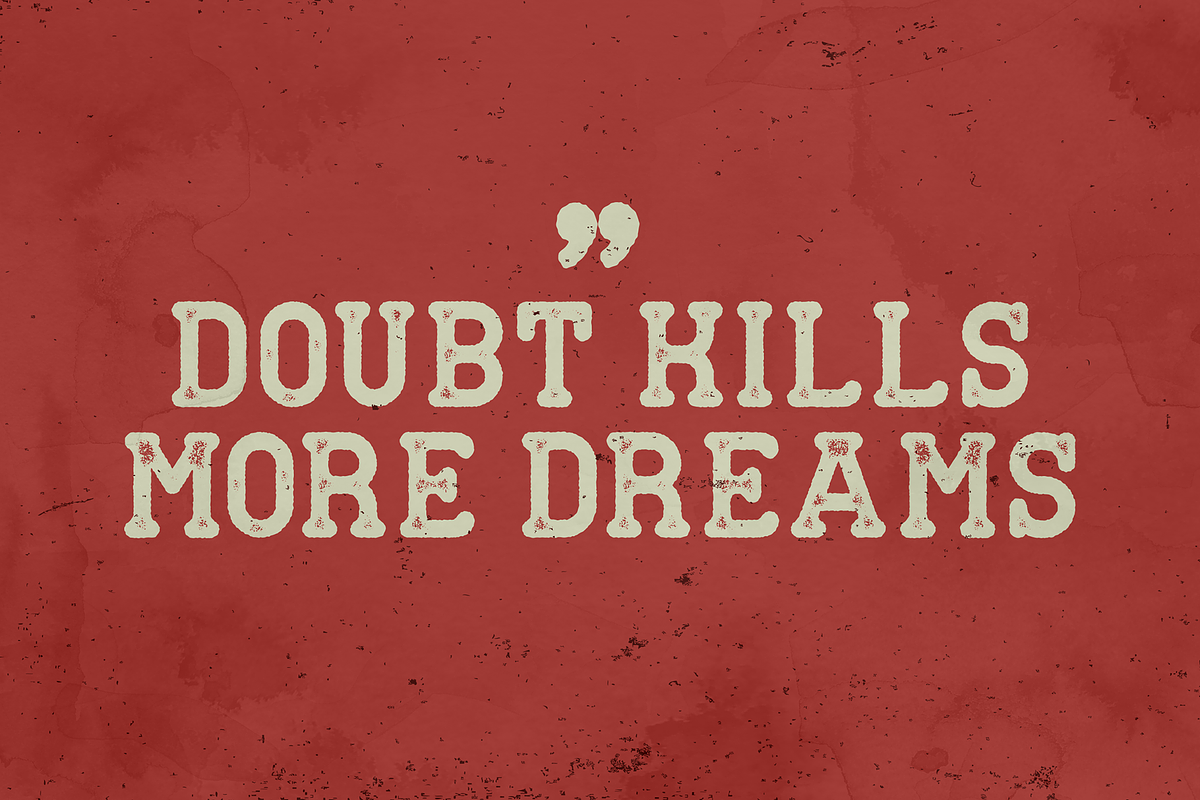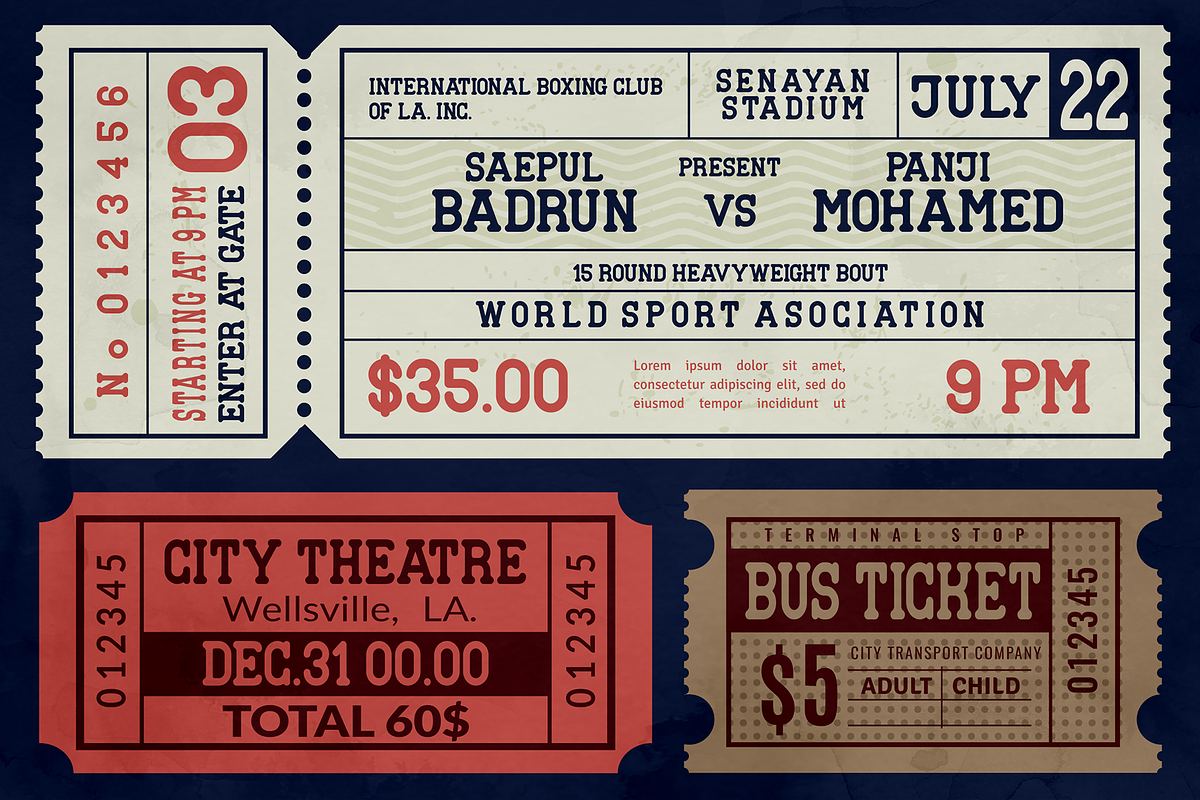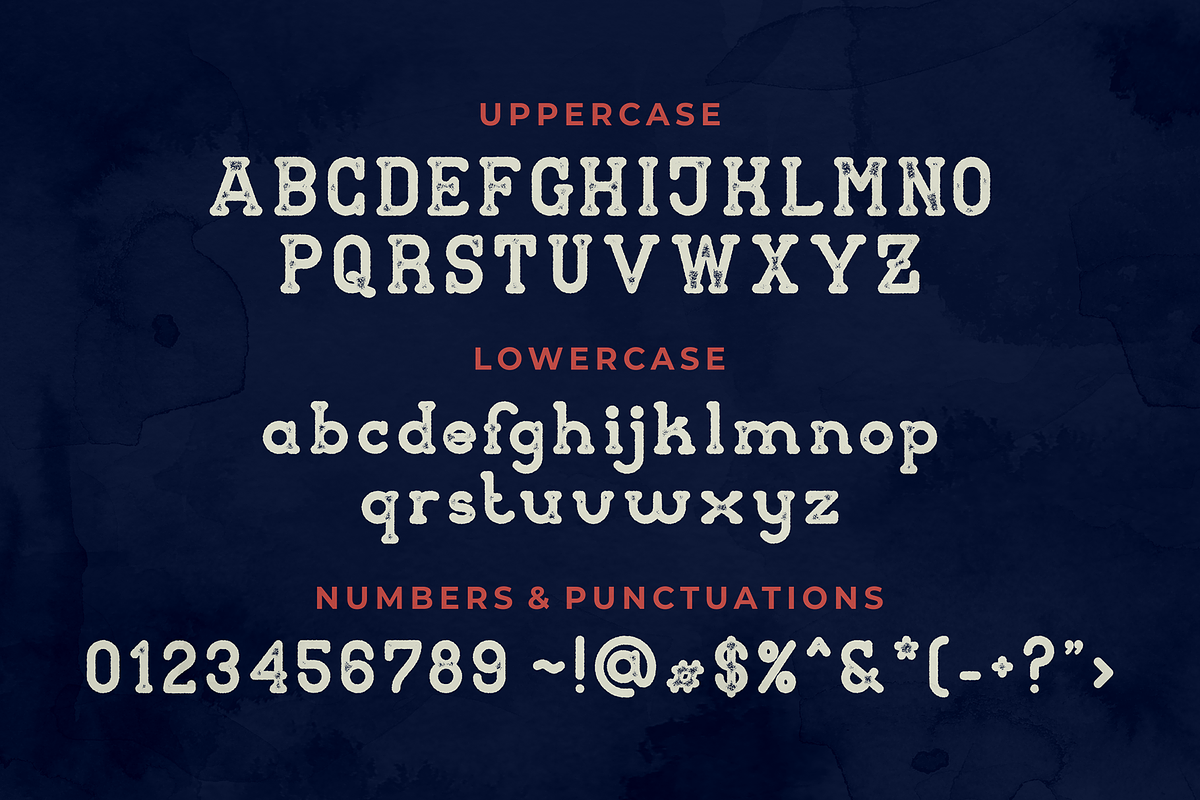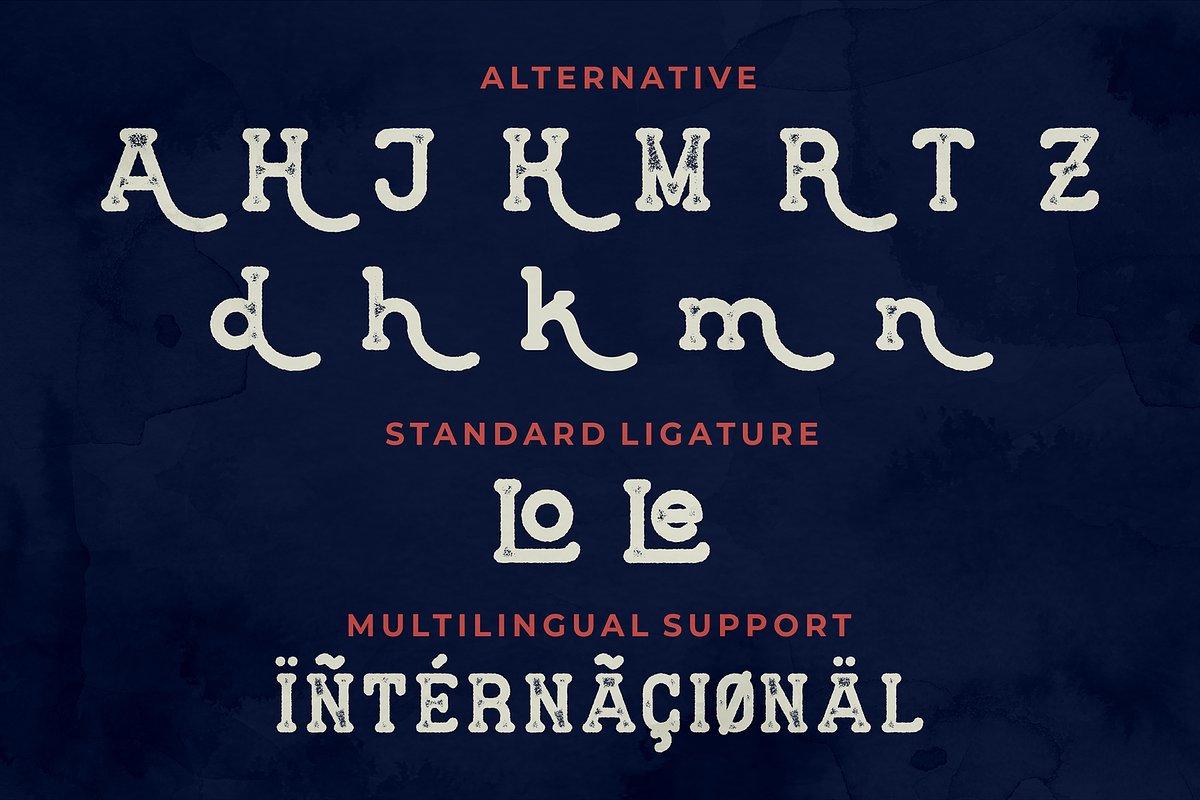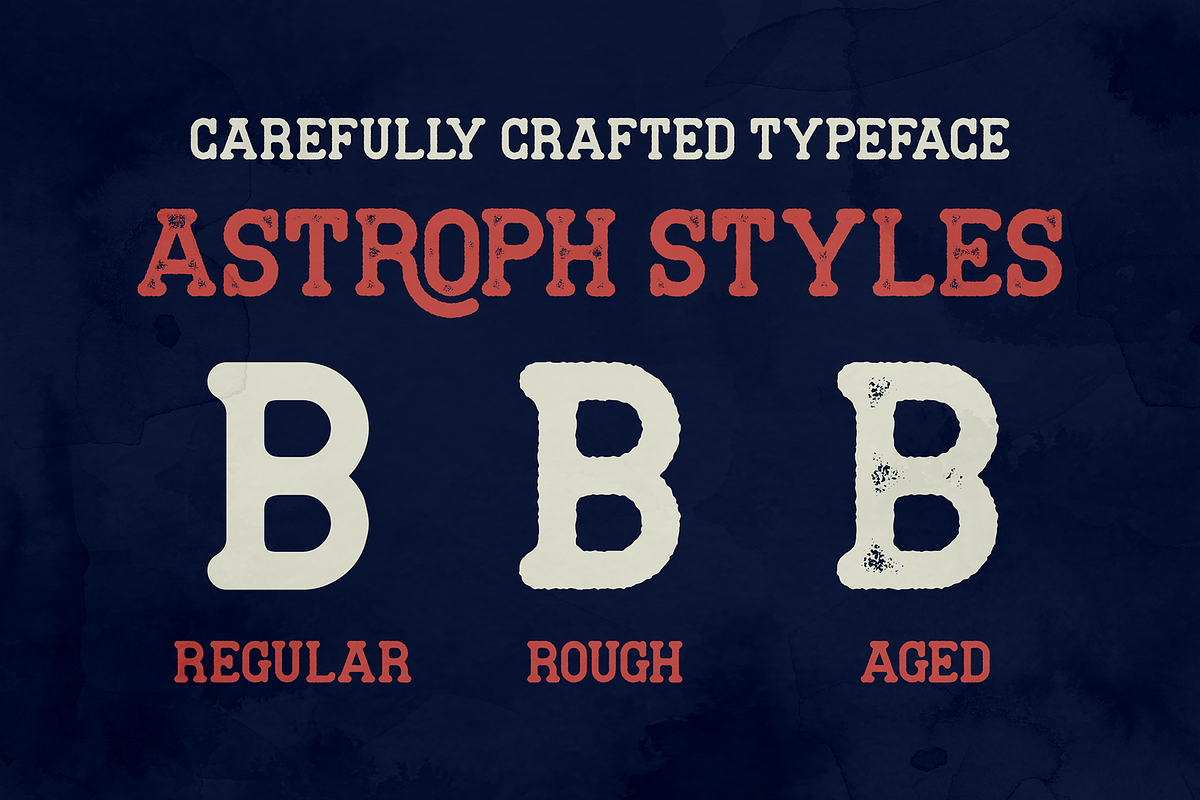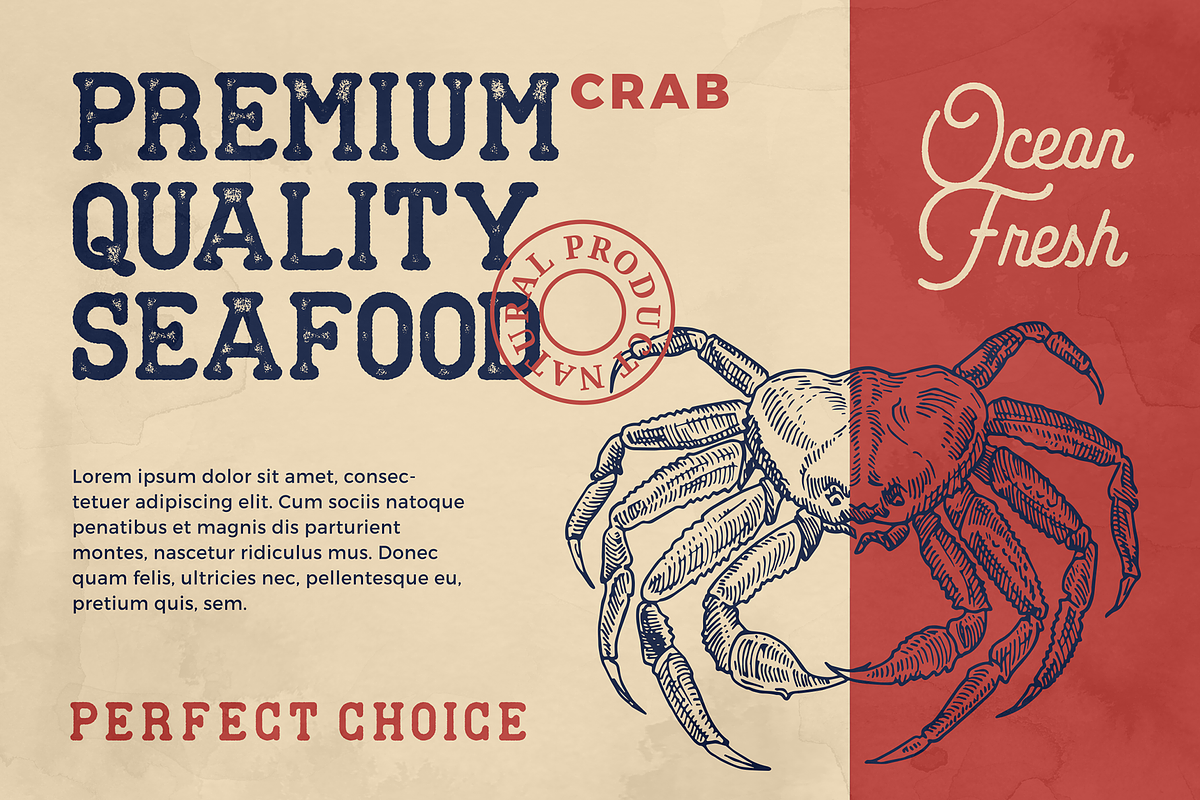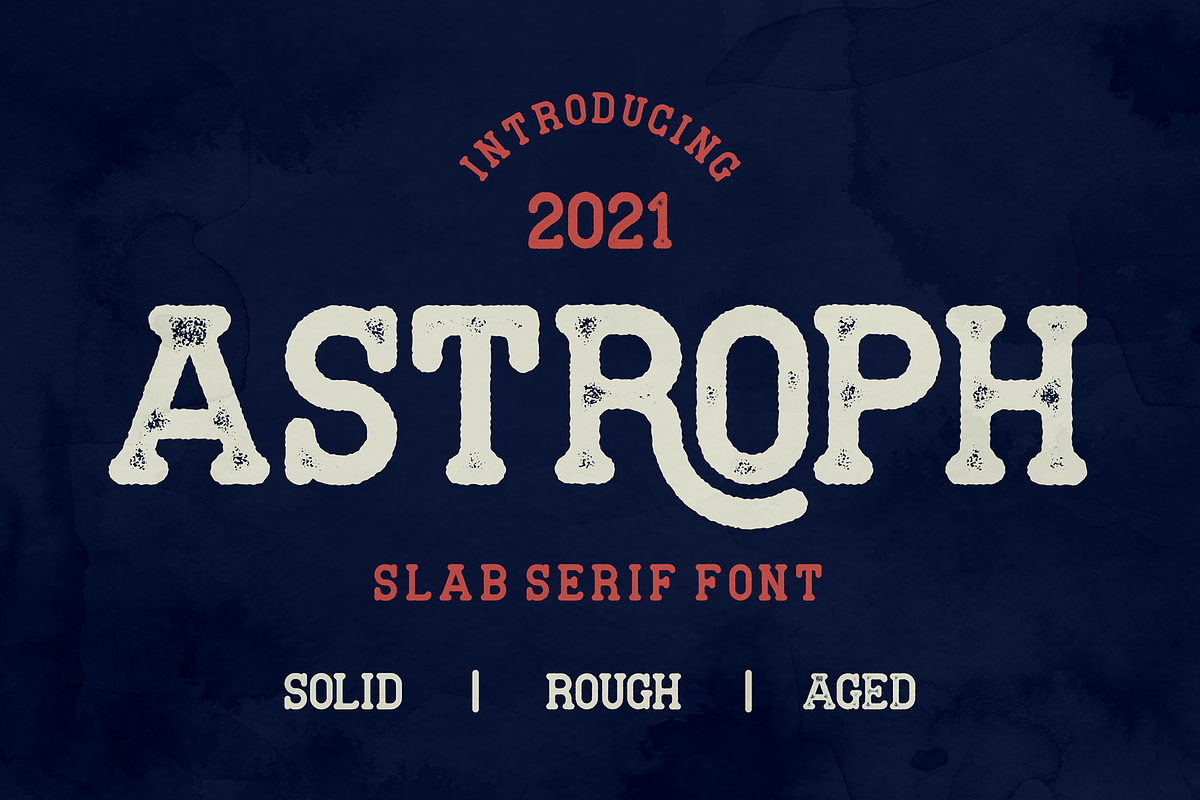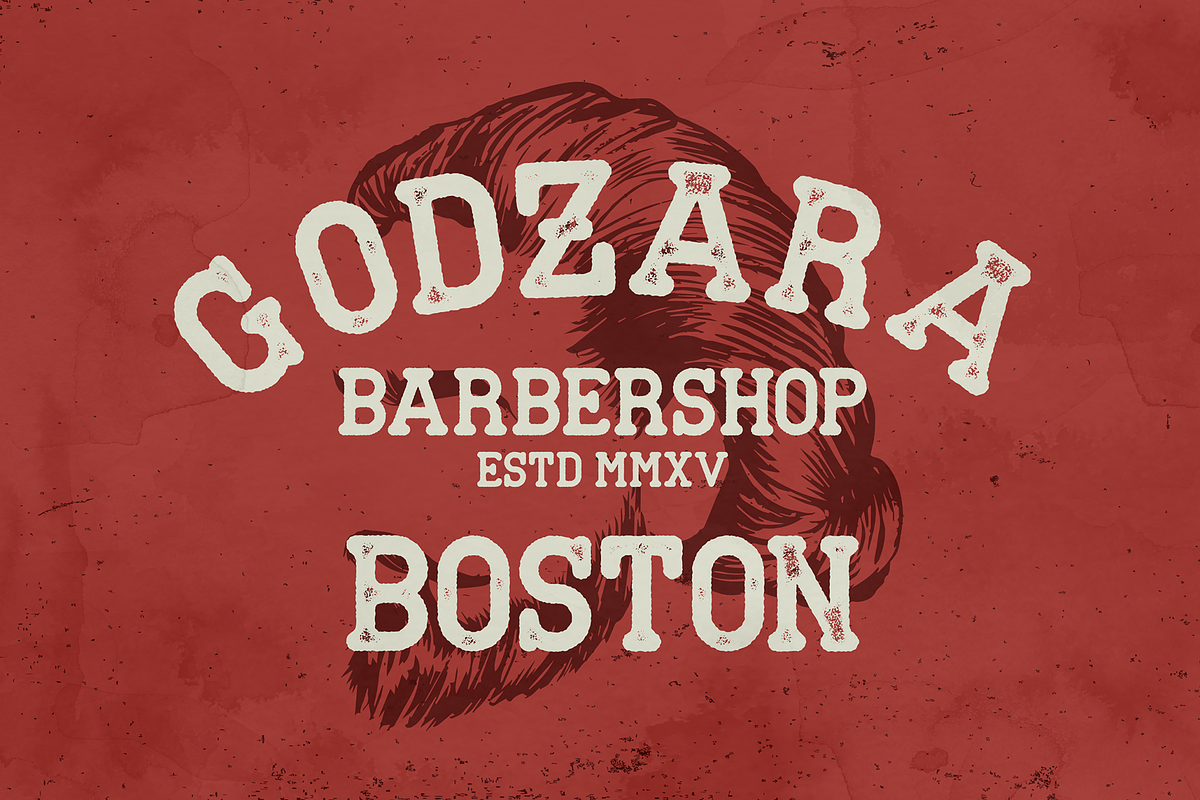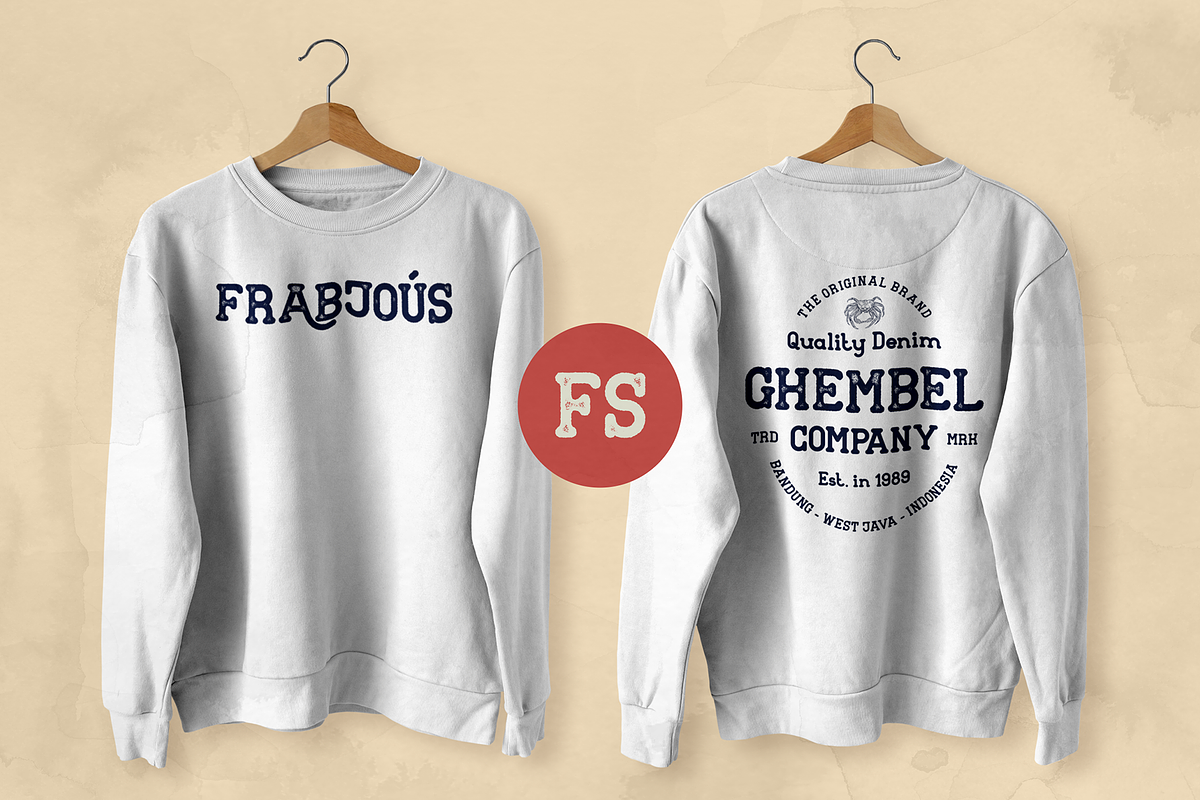
Astroph - Retro Slab Serif
Astroph - Retro Slab Serif Font
Astroph Slab Serif font is perfect for your upcoming projects. Such as logo branding, editorial design, fashion, adventure apparel, stationery design, sport design, blog design, modern advertising design, card invitation, badge, art quote, home decor, book/cover title, special events, and more.
Astroph is coming with 3 Styles:
- Astroph Regular
- Astroph Rough
- Astroph Aged